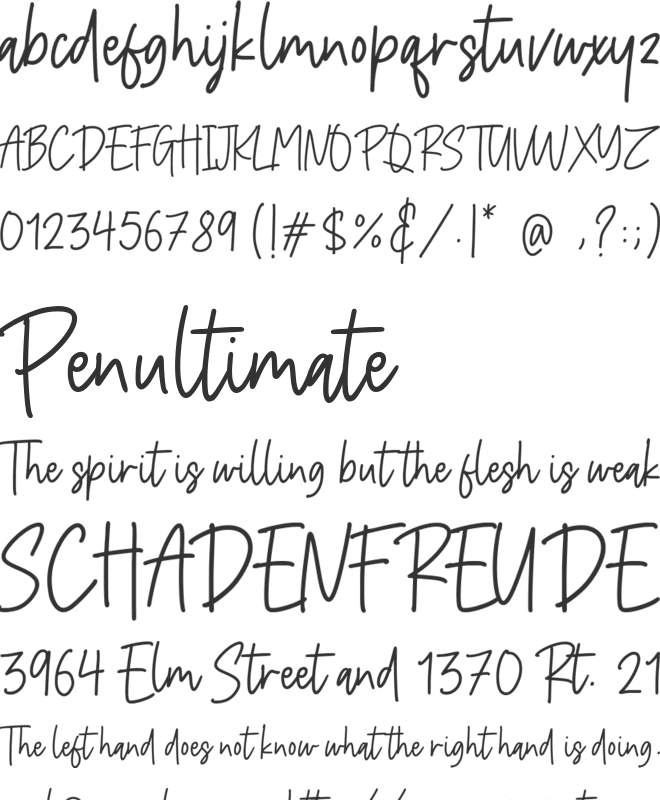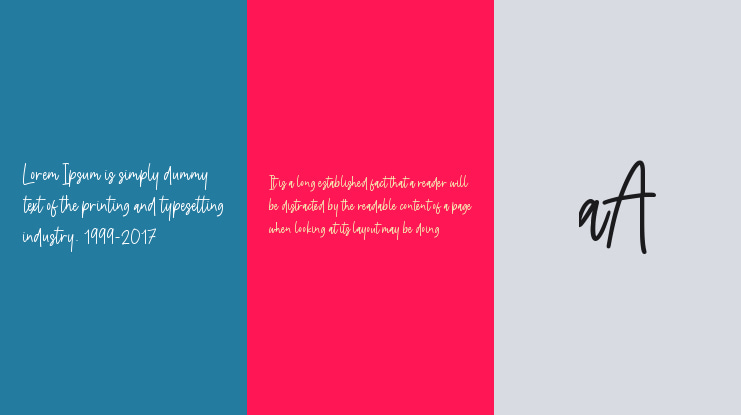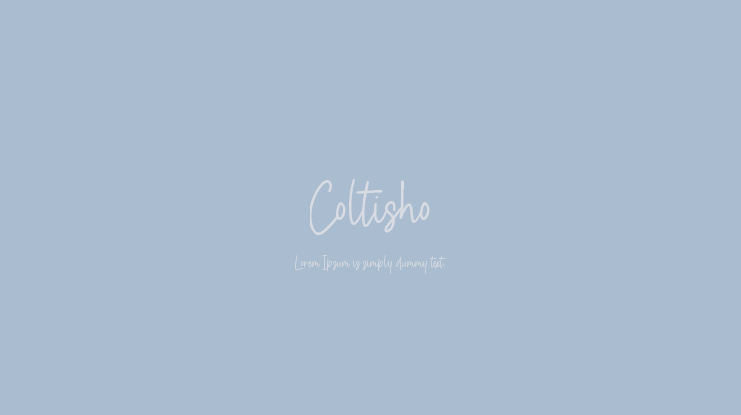
Coltisho Font
Proudly Present, Coltisho Font.
Coltisho is a Monoline Handwritten font.
Coltisho is perfect for product packaging, branding project, megazine, social media, wedding, or just used to express words above the background.
Coltisho font preview